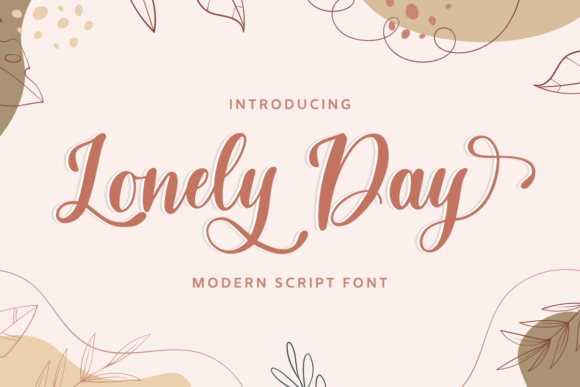
Lonely Day: A Stylish Cursive Font for Polished Branding
Imagine you're a small business owner, and you're about to launch a new line of artisan candles. You want your packaging to stand out, to make a statement, and to feel personal. This is where Lonely Day, a fashionable and cursive handwritten font, comes into play. This Script Handwritten font is not just a typeface; it's a way to add a touch of elegance and personality to your brand.
Lonely Day for Product Labels and Packaging Design
When I first used Lonely Day for my candle labels, the transformation was immediate. The cursive style adds a handcrafted, bespoke feel that resonates with customers looking for something unique. The PUA encoding means you can easily access all the glyphs and swashes, making it simple to create intricate, eye-catching designs. Whether you're labeling candles, skincare products, or gourmet foods, Lonely Day brings a level of sophistication that sets your products apart.
Using Lonely Day in Logo Design and Brand Identity
A strong logo is the cornerstone of any brand, and Lonely Day is perfect for creating a memorable and elegant logo. The fluid, cursive lines give a sense of movement and grace, which can be particularly effective for businesses in the beauty, fashion, or lifestyle sectors. For example, a boutique using Lonely Day in its logo can instantly convey a sense of luxury and attention to detail. The font's exquisite style makes it ideal for both standalone logos and as part of a larger brand identity system.
Lonely Day for Social Media Graphics and Online Shop Banners
In today's digital age, your online presence is often the first point of contact with potential customers. Using Lonely Day in your social media graphics and online shop banners can help you make a lasting impression. The cursive, handwritten style adds a personal touch, making your posts and banners more engaging and relatable. Whether you're promoting a new product, sharing a special offer, or simply updating your followers, Lonely Day helps you do it with style and flair.
Readability and Practical Tips for Using Lonely Day
While Lonely Day is beautiful, it's important to use it judiciously to ensure readability. This font works best for headlines, short phrases, and decorative accents. For longer text, consider pairing it with a clean sans serif or an elegant serif font. This combination ensures that your content is both visually appealing and easy to read. Additionally, when using Lonely Day on small labels or mobile screens, make sure to test the legibility at different sizes to ensure it remains clear and attractive.
Lonely Day for Menus, Flyers, and Print Materials
For businesses like cafés, bakeries, and event planners, printed materials such as menus, flyers, and thank-you cards are essential. Lonely Day can add a touch of charm and sophistication to these materials. Imagine a café menu with Lonely Day as the header font, complemented by a clean, modern sans serif for the body text. This combination creates a balanced and inviting look that enhances the overall dining experience. Similarly, using Lonely Day for thank-you cards and promotional flyers can make your brand feel more personal and thoughtful.
In conclusion, Lonely Day is a versatile and stylish Script Handwritten font that can elevate your brand's visual identity. From product labels and logos to social media graphics and print materials, this font offers a unique and elegant solution for small business owners looking to make a polished and memorable impression.